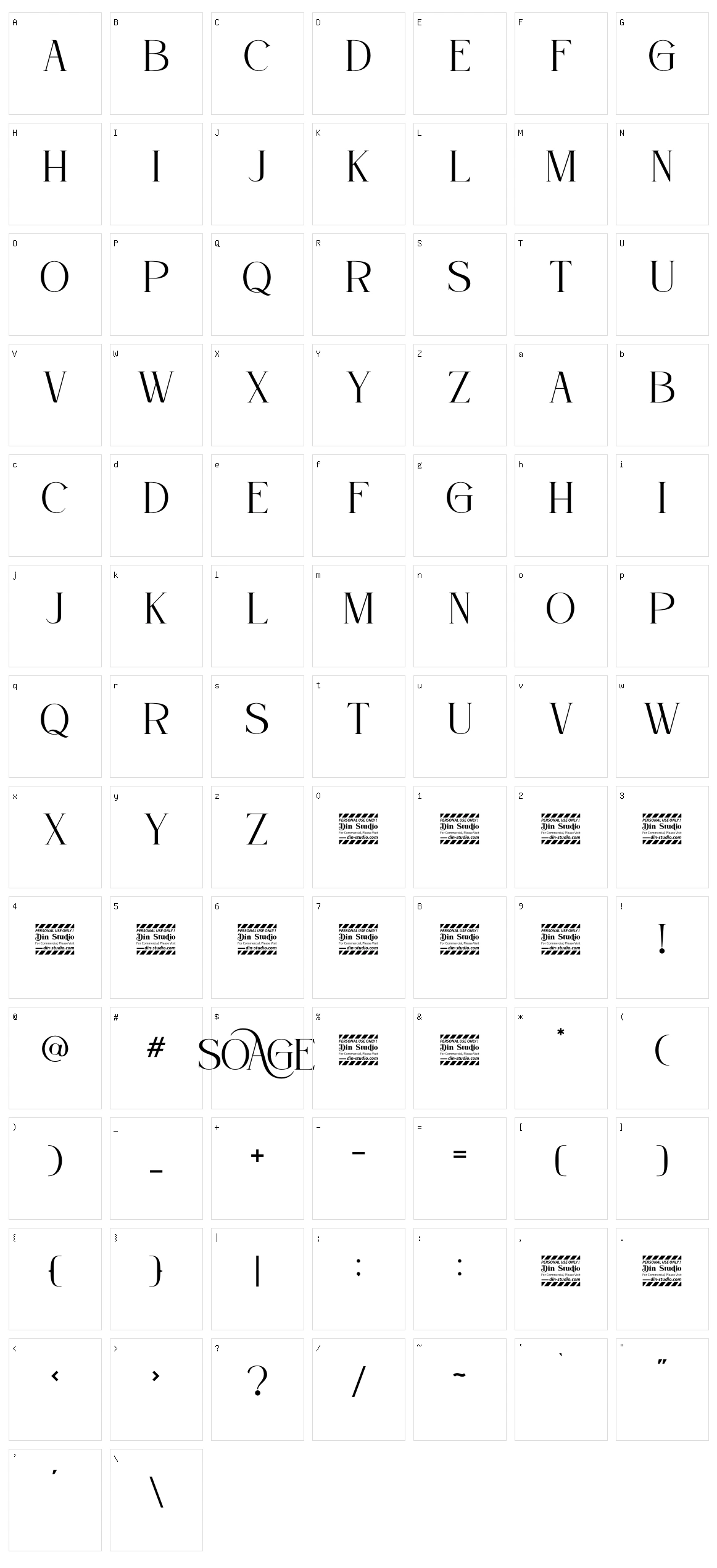
The free font Soage is carefully designed by Din Studio, showcasing a thoughtful balance of creativity and usability and falls under the Serif font style. When you download the ZIP file, it contains only 264.68 KB of font files, making it lightweight and quick to download. Please review the license details below to understand permitted usage and distribution rights. If license information is not available, we recommend using this font for personal projects only or contacting the author directly for commercial usage permissions.